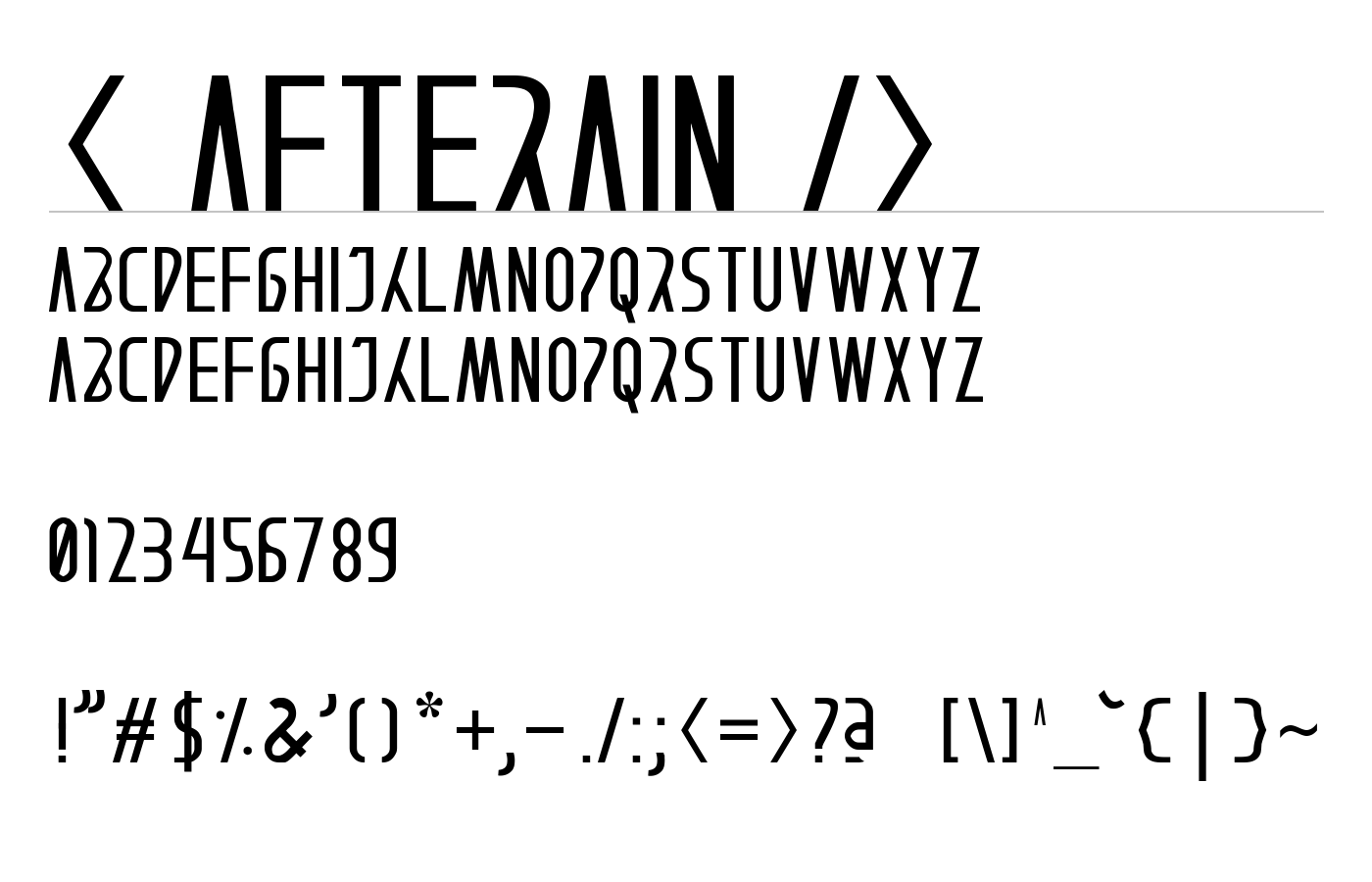
Afterain is a narrow, modern sans serif font with high contrast and sharply geometric letterforms that give it a sleek, futuristic vibe. Its condensed structure and distinctive, stylized characters make it ideal for bold headlines, branding, or editorial designs that seek a cutting-edge, avant-garde feel. This font works well where a unique, tech-inspired aesthetic is needed to catch attention and convey innovation.
< AFTERAIN /> Font
About < AFTERAIN /> Font